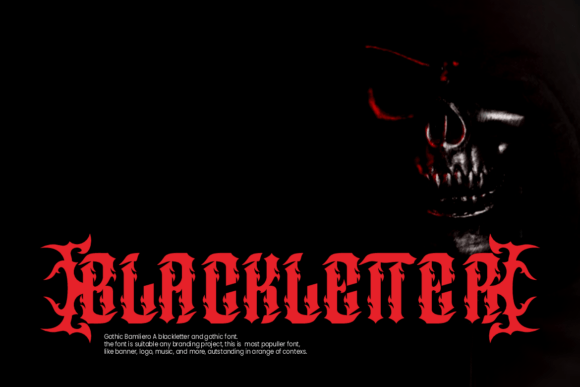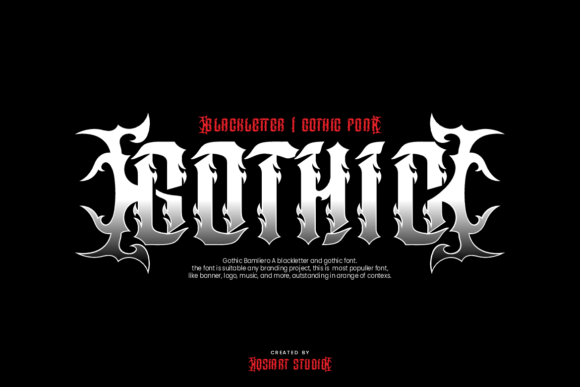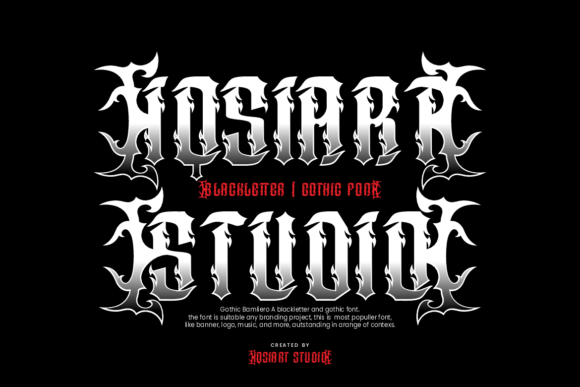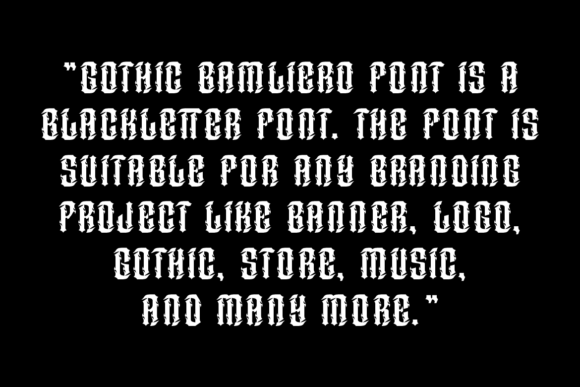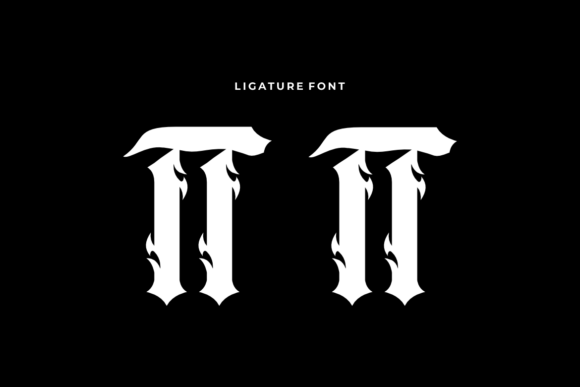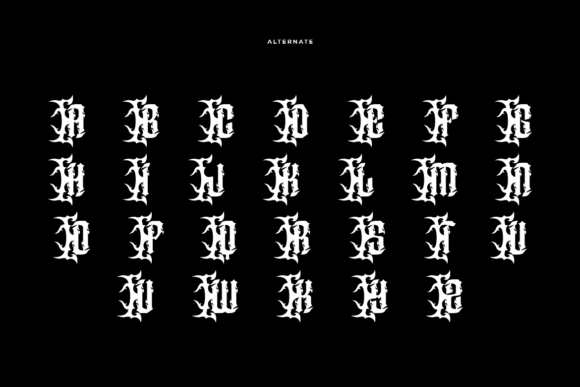
Introduction to Gothic Bamliero Font
Gothic Bamliero is a bold blackletter and gothic punk display font that merges medieval intensity with modern edge.
Characterized by sharp, ornamental letterforms and dramatic contrast, it evokes the rebellious spirit of underground subcultures while honoring traditional typographic roots Designed to make an impact, it excels in branding for music, streetwear, tattoo-inspired visuals, horror themes, and dark-themed projects.
Key Features of Gothic Bamliero Font